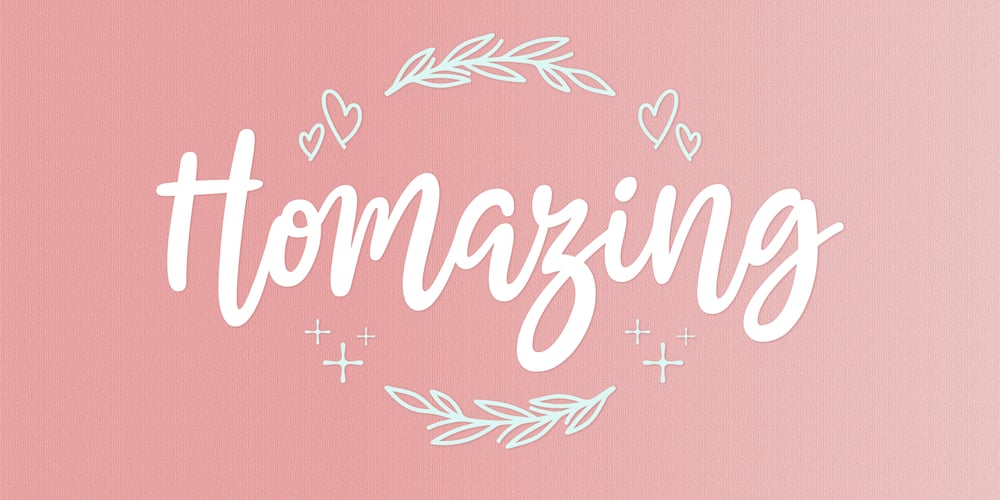
Homazing Font Family was designed by Situjuh Nazara and published by 7NTypes. Homazing contains 1 styles and family package options. Homazing is inspired by daily working at home, doing something amazing. It presents a flexible, dynamic, clean, and unique personality. Ideal for advertising, packaging, cards, quotes, and in others display settings. Homazing Font features OpenType and is packed with ligatures, stylistic sets, ornaments, and also supports most Eastern European characters.